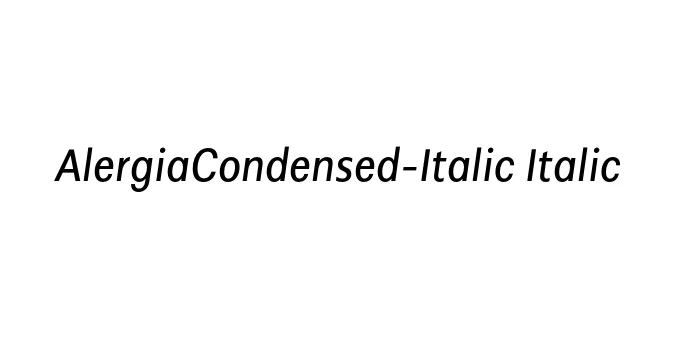
AlergiaCondensed-Italic Italic
Designed by Mateusz Machalski
Alergia Condensed-Italic is a sophisticated typeface designed by Mateusz Machalski, representing a fusion between the rigid structure of 20th-century grotesques and the fluid elegance of geometric sans-serifs. This specific italic weight offers a dynamic slant that enhances the visual flow of text, making it an excellent choice for editorial layouts and technical documentation where space efficiency and readability are paramount.
Released as part of a larger superfamily, the Alergia series is known for its versatility across digital and print media. The condensed proportions allow for impactful headlines without sacrificing legibility, while the subtle humanist touches prevent the font from feeling overly cold or mechanical. Its rhythmic spacing and carefully balanced kerning make it a favorite for modern branding and identity projects.
AlergiaCondensed-Italic Italic Best Uses
Perfect for magazines and journals where vertical space is limited.
Creates a professional and sleek look for modern tech or architecture companies.
High-impact headlines in both print and digital advertisements.
Clean navigation menus and descriptive subheaders that require a narrow footprint.